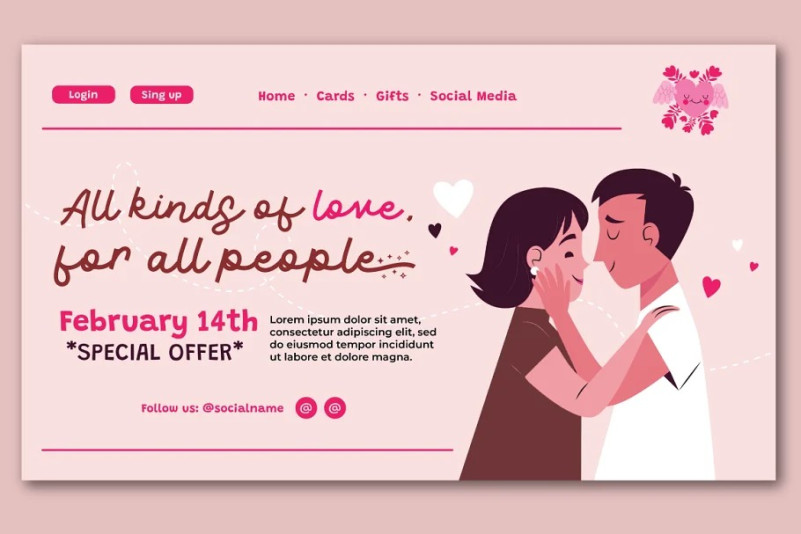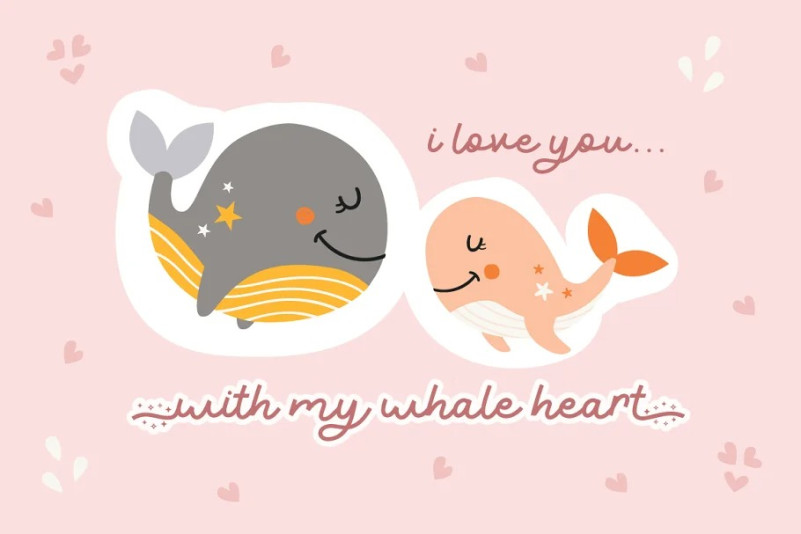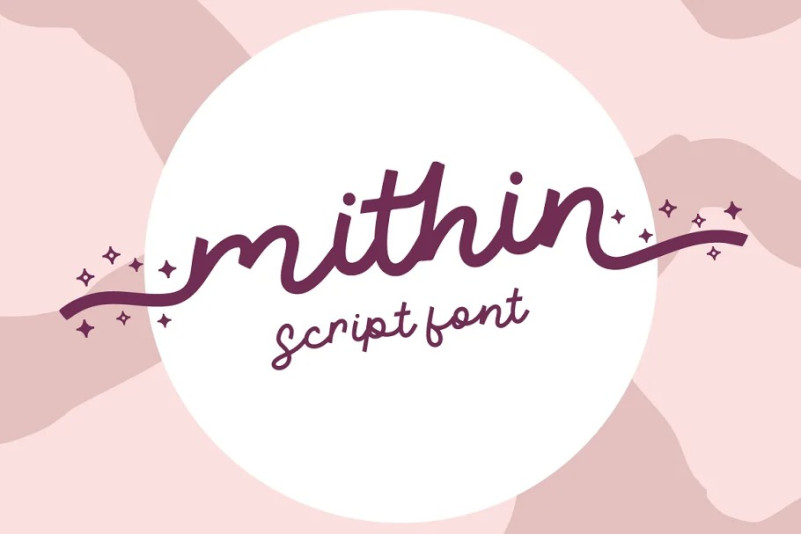
Mithin Font
Mithin Script Font is script font inspired by sparkle show. Combine it with Mithin – Swash to make an amazing sparkle effect on your letter!
Mithin perfect for magic show promotion, branding, logo, invitation, stationery, social media post, product packaging, merchandise, blog design, game titles, cute style design, Book/Cover Title and more.